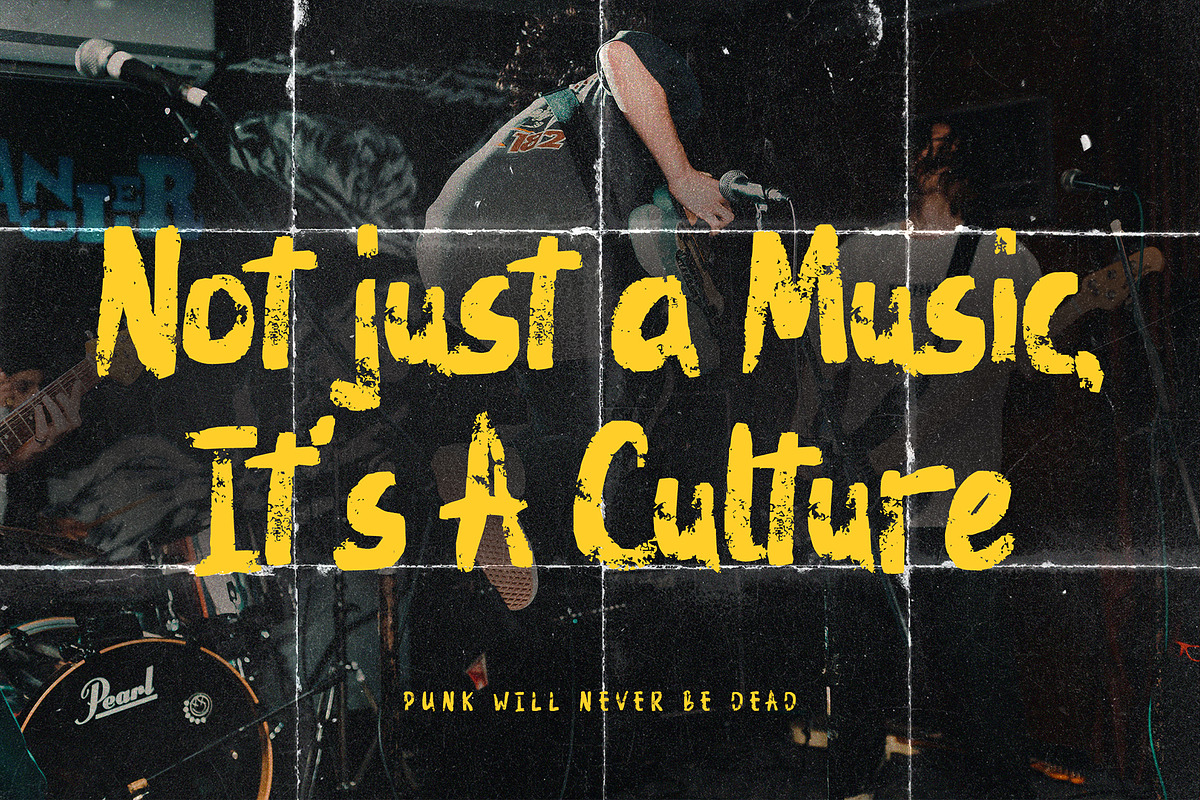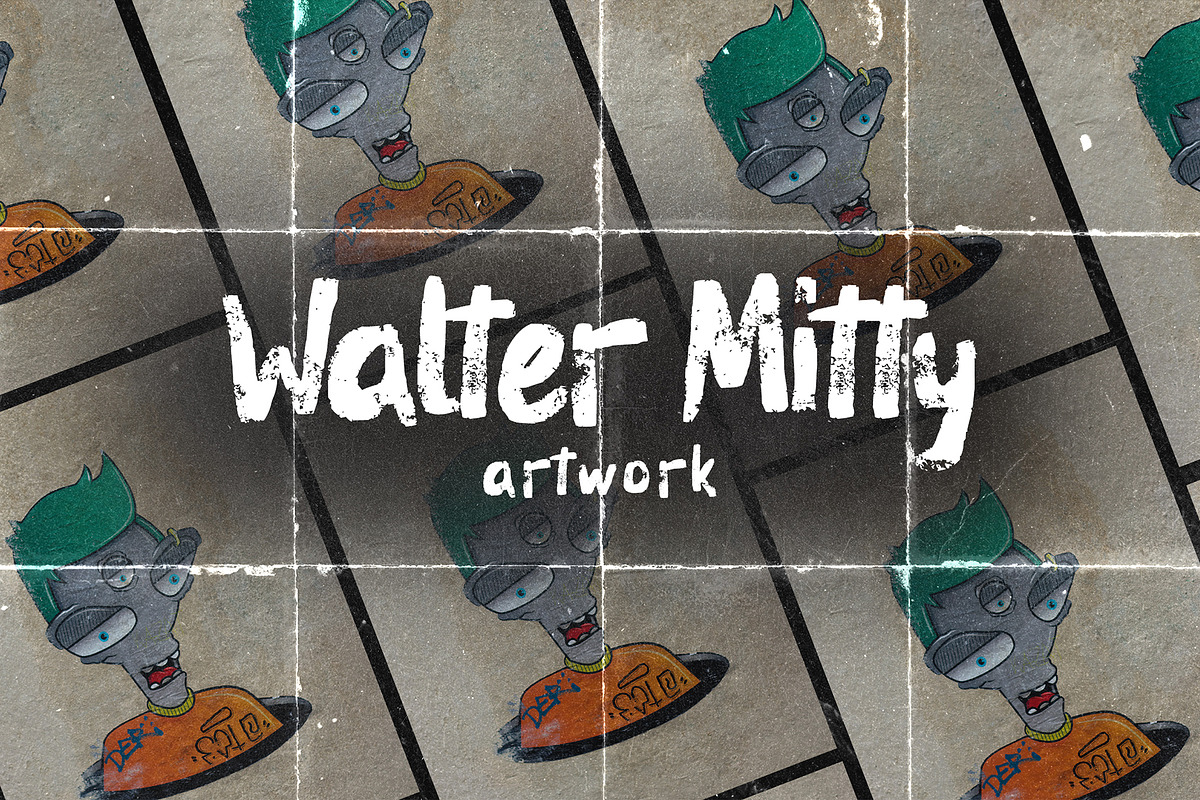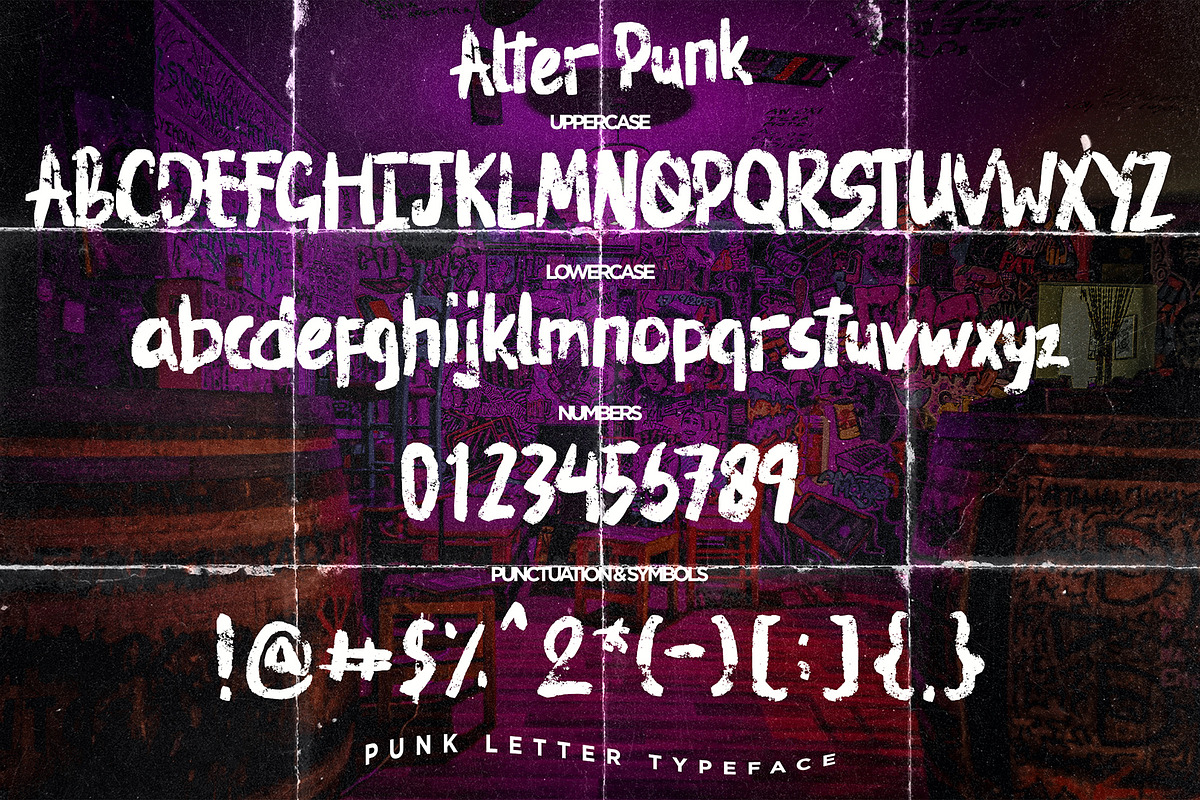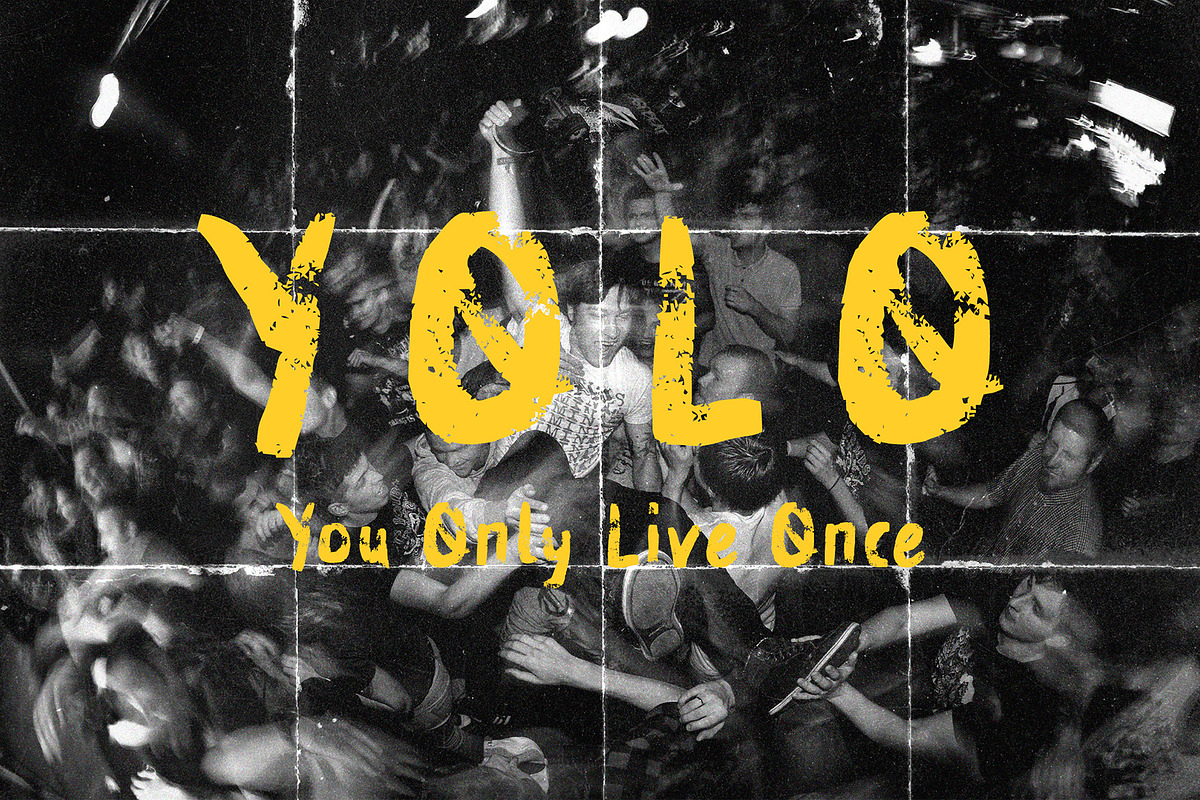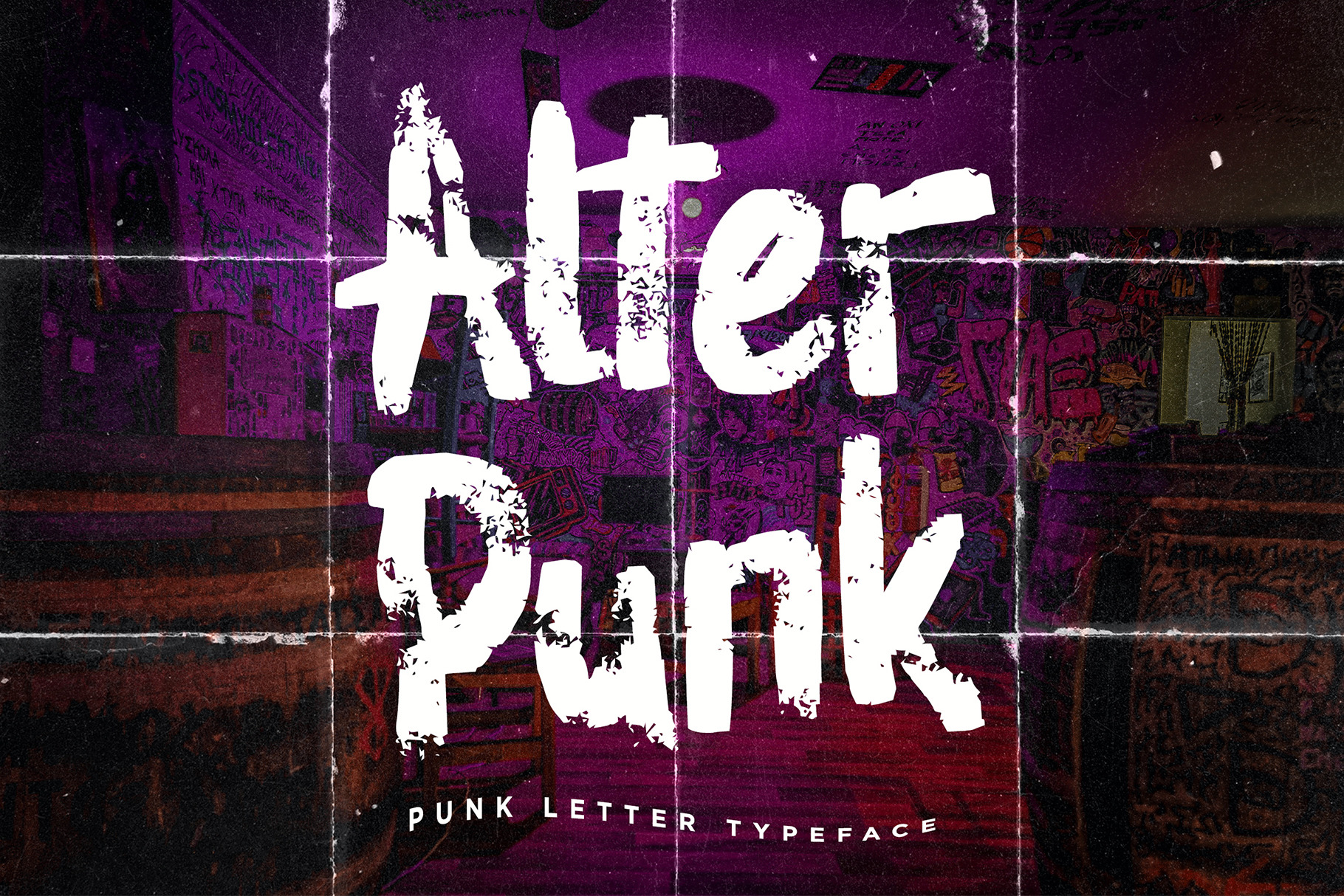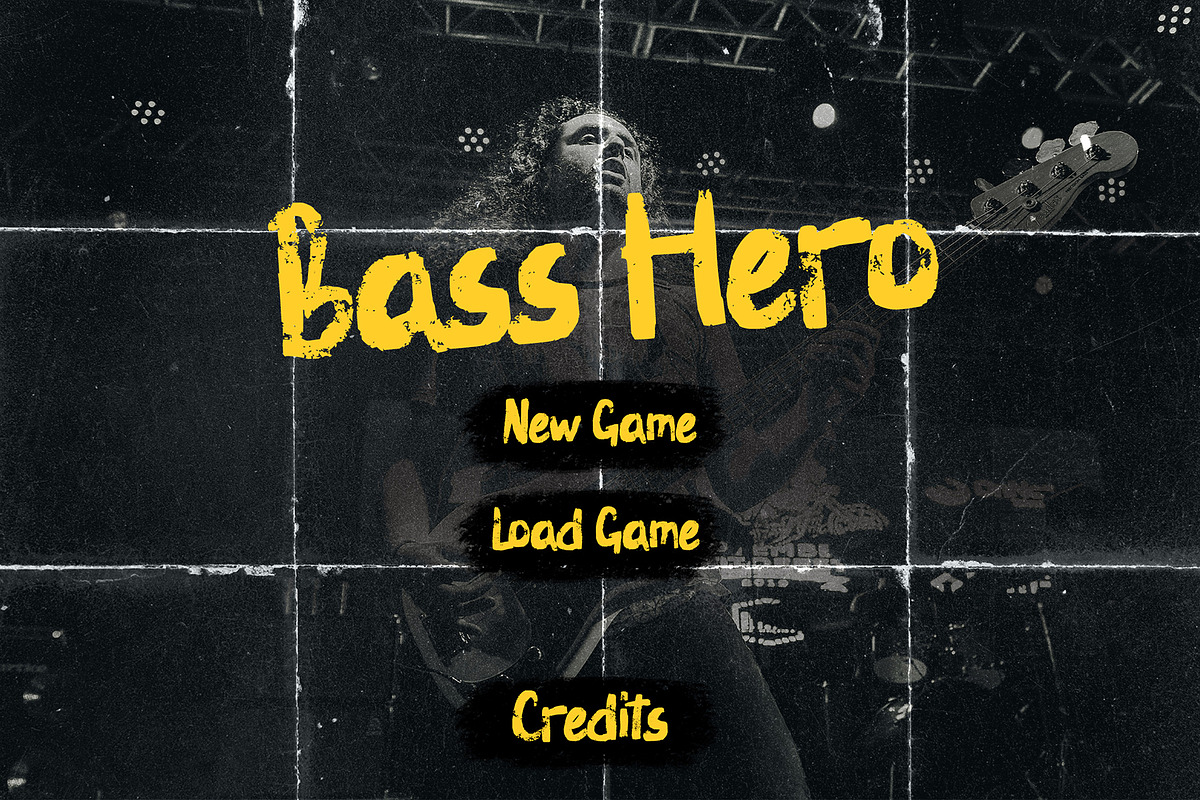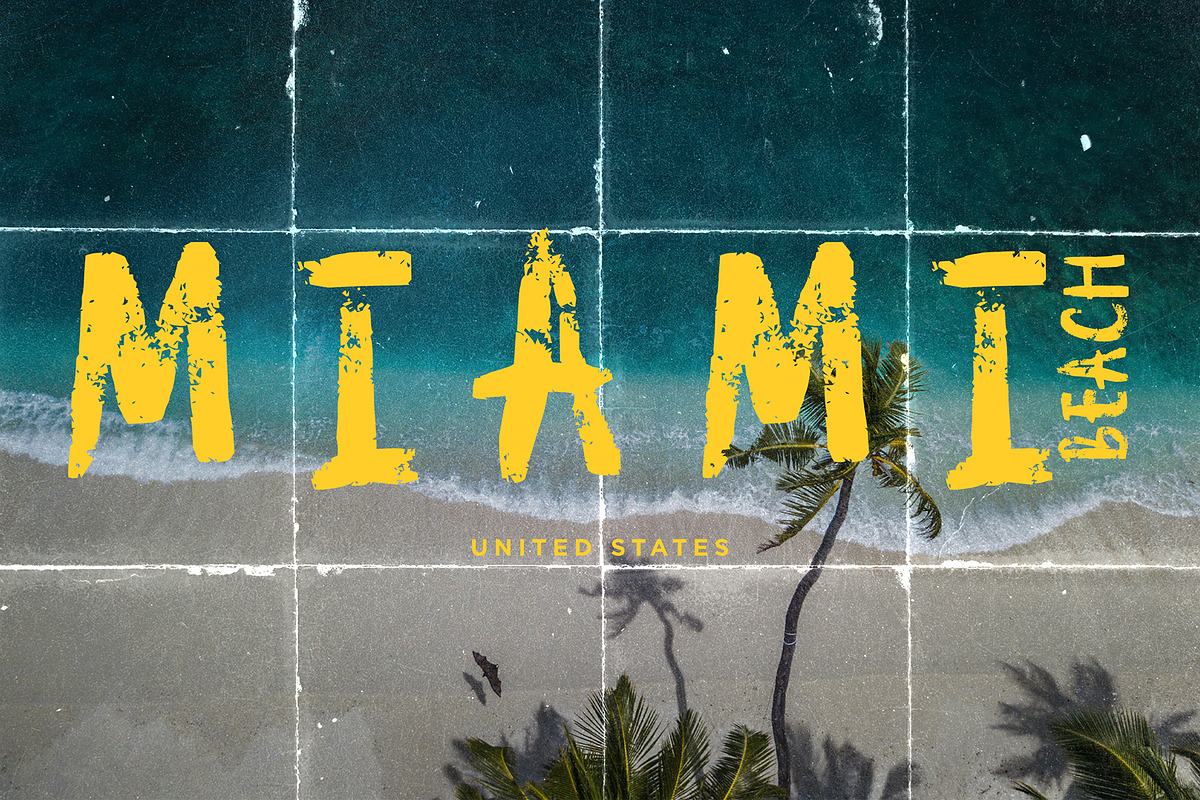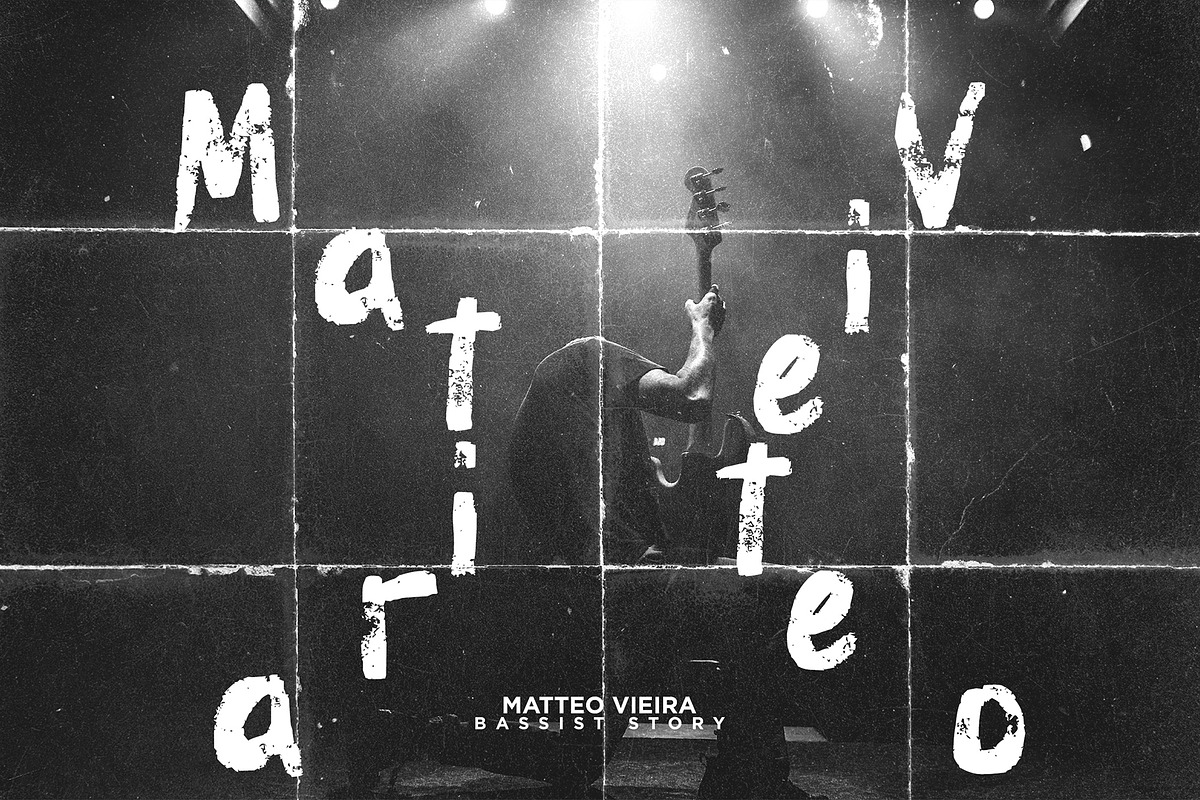
Alter Punk – Punk Letter Typeface
🔥 Grunge Meets Elegance – A Typeface That Rebels With Style 🔥
Alter Punk is a fearless punk-style font that delivers a raw, authentic vibe with a bold voice. Handcrafted for maximum impact, this font fuses rough textures with rebellious attitude perfect for creatives who want their logo designs, corporate visuals, or food branding to break all the rules while still keeping it classy.
From high-end modern packaging to vintage-inspired marketing, Alter Punk is a gritty yet elegant typeface that grabs attention and never lets go.
Punk & Rock Band Branding
Corporate Logo Design
Luxury Streetwear & Urban Fashion Labels
Food & Beverage Packaging (think bold coffee labels, hot sauce jars, vegan snacks)
Music Album Covers & Posters
Zine Titles & Editorial Spreads
Event Flyers, Merchandise, and more
All Uppercase A–Z Letters
Punctuation & Symbols
Grunge Texture Details
- Vintage soul with a modern twist
- Great for corporate identity and logo design
- Sharp enough for luxury branding, wild enough for punk packaging
- Unique textures that bring your food brand or editorial layouts to life
- Works flawlessly on both print and digital platforms
Why Choose Alter Punk?
Because bold ideas deserve a bold typeface. Whether you're designing for a high-end urban brand, crafting standout food logos, or creating raw, underground aesthetics with a touch of elegant chaos, Alter Punk is your go-to font.